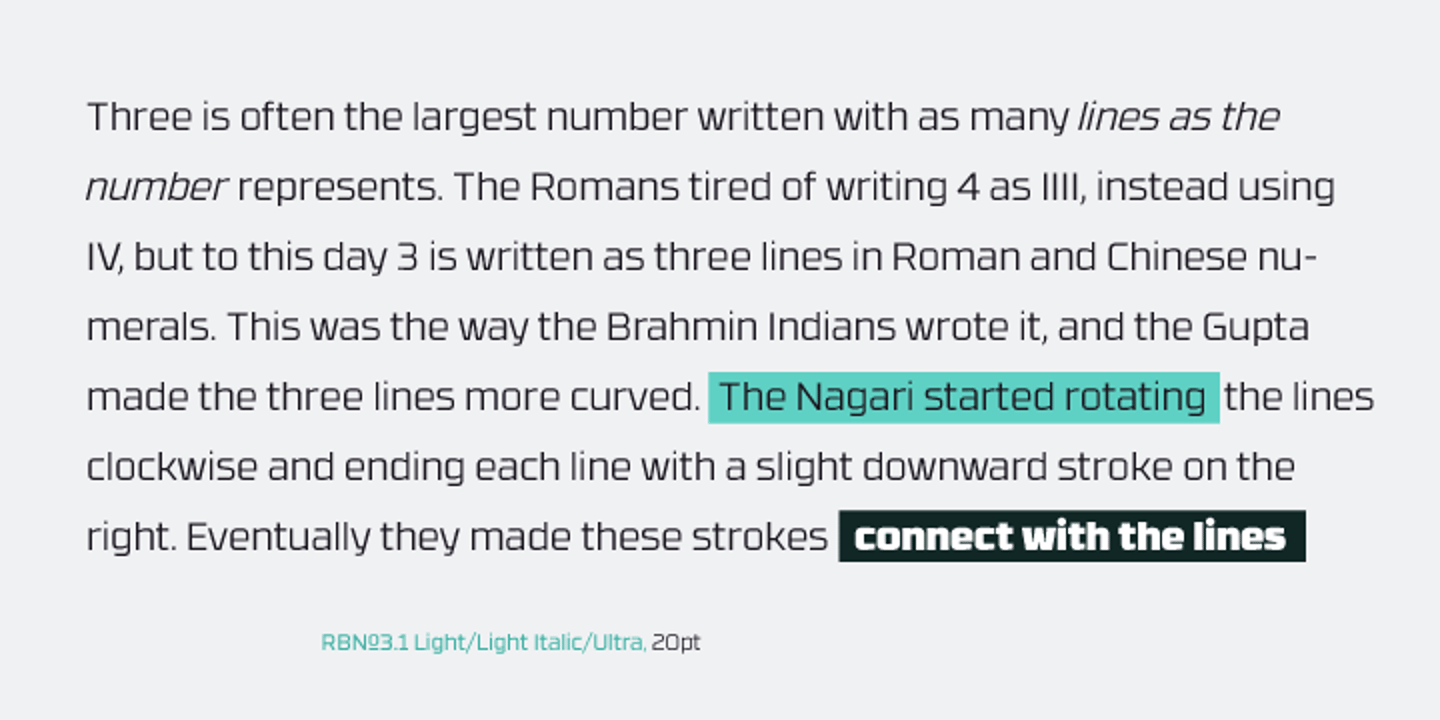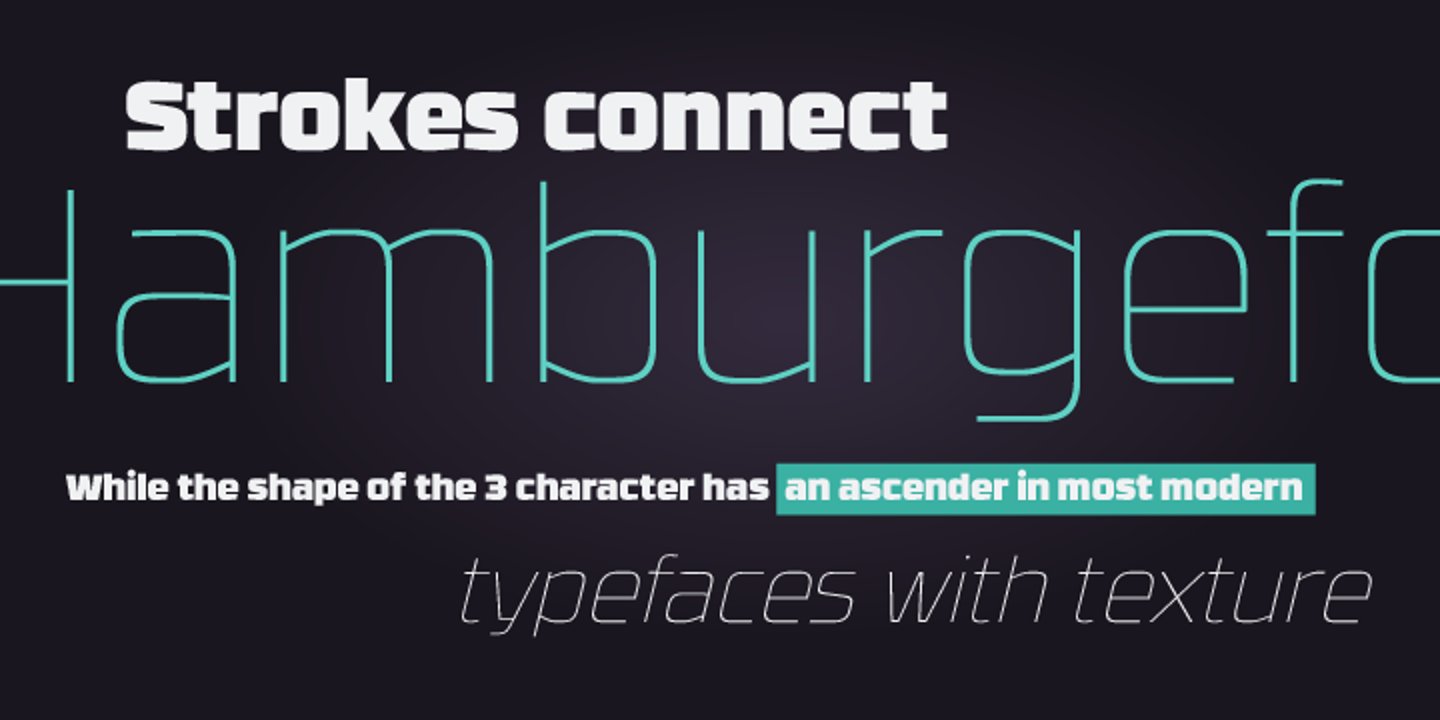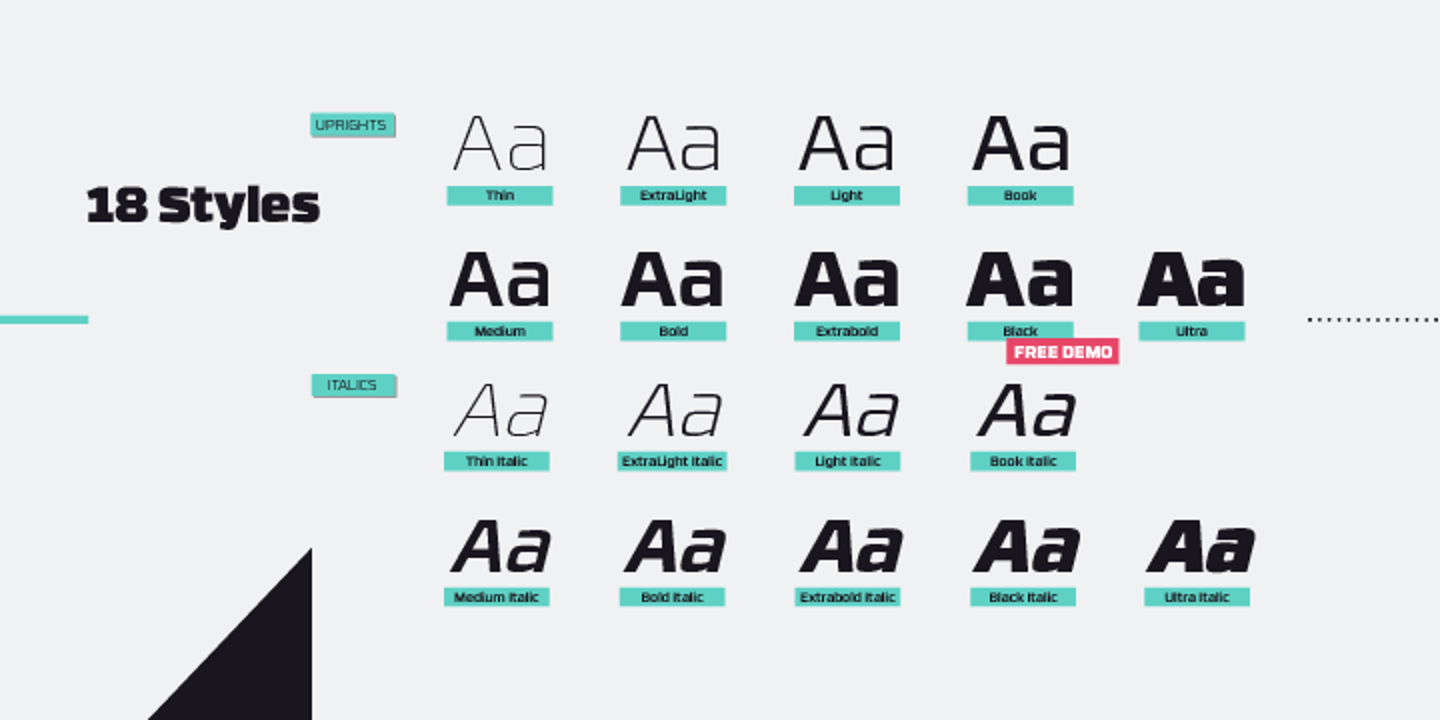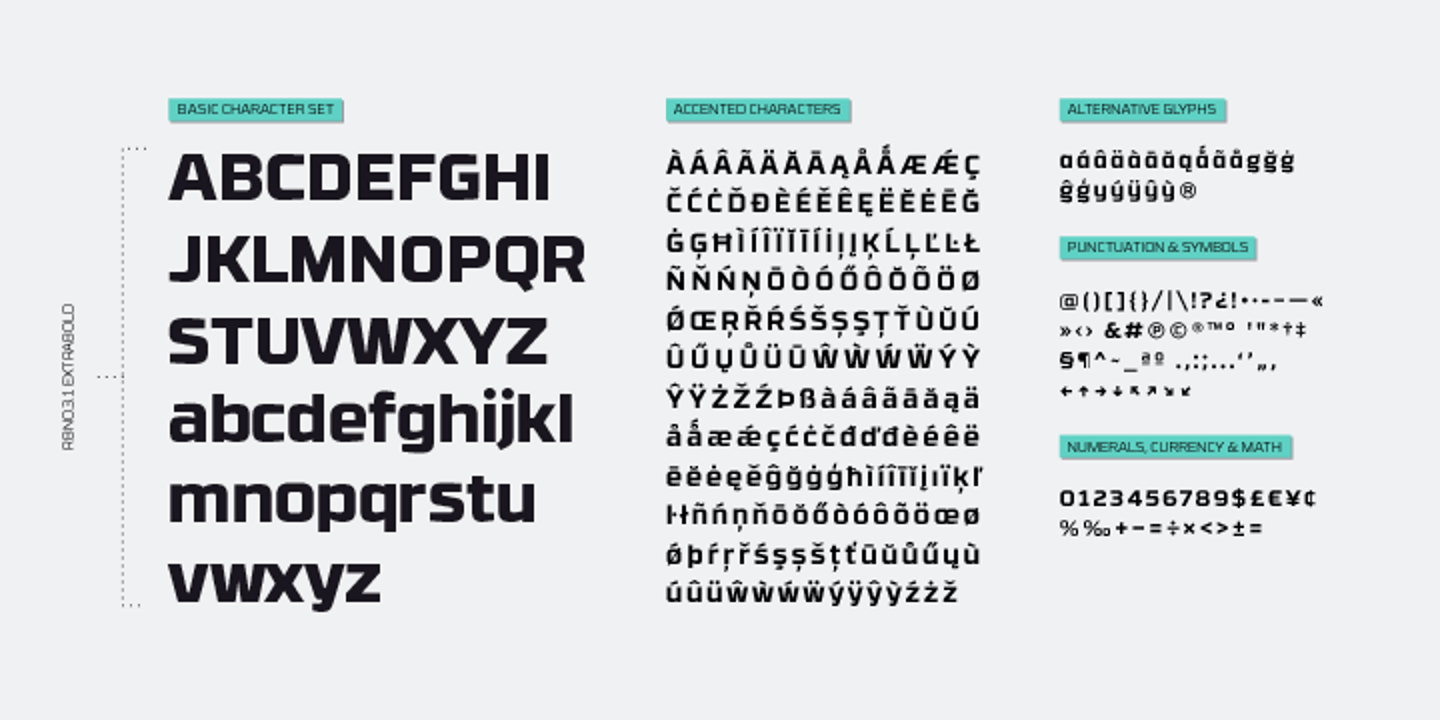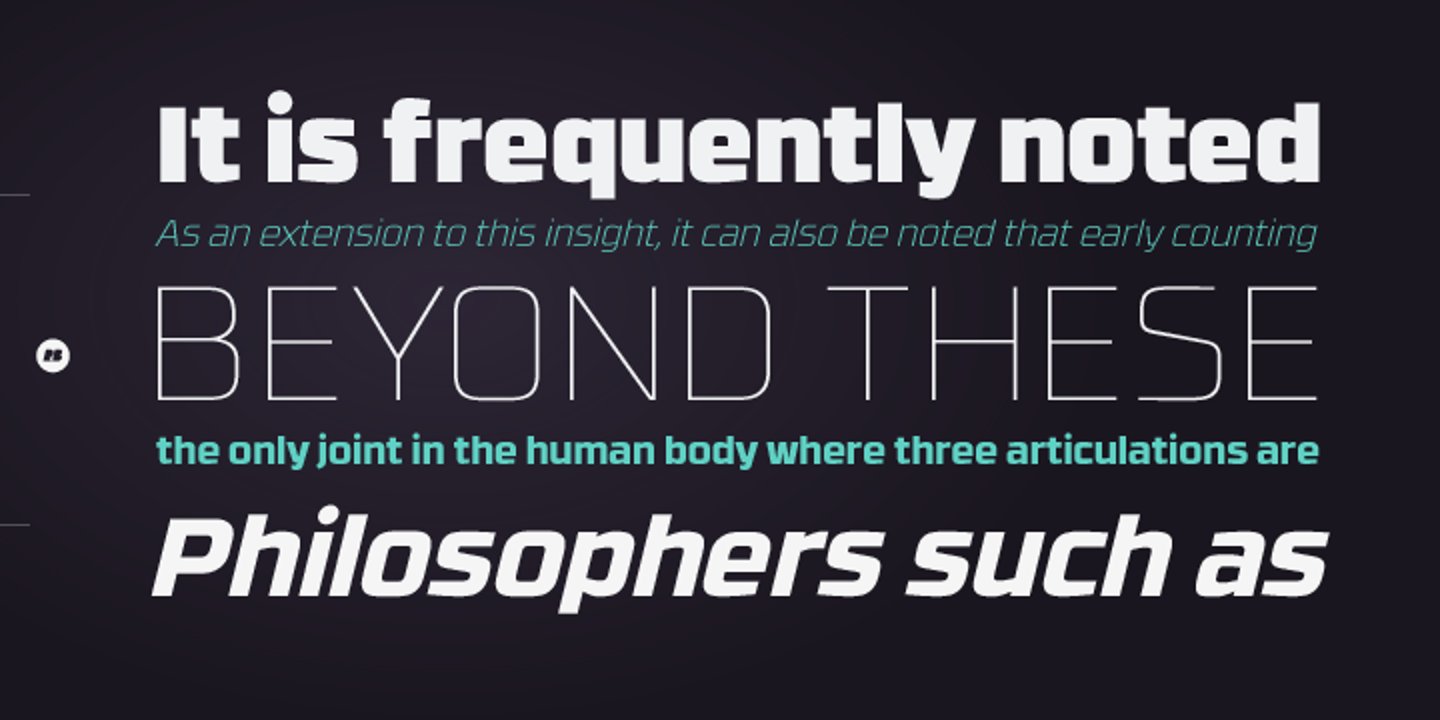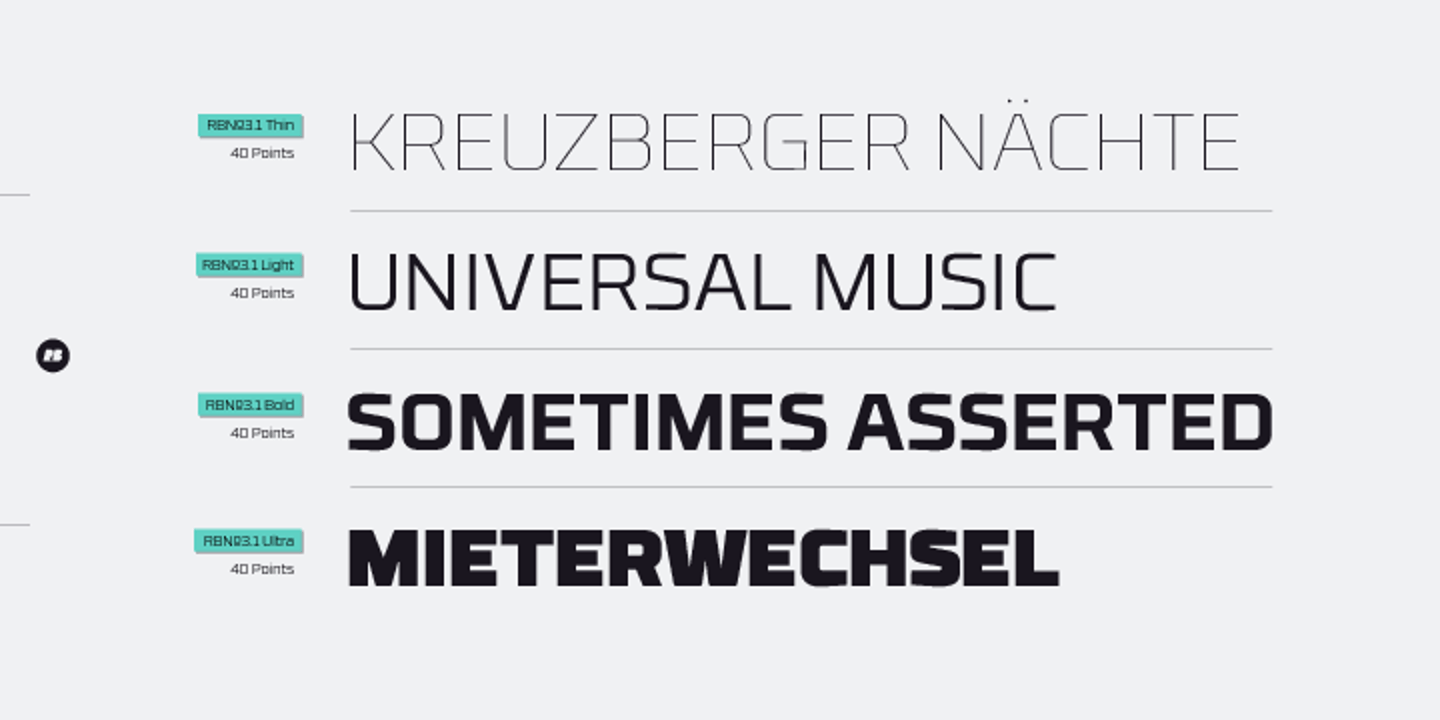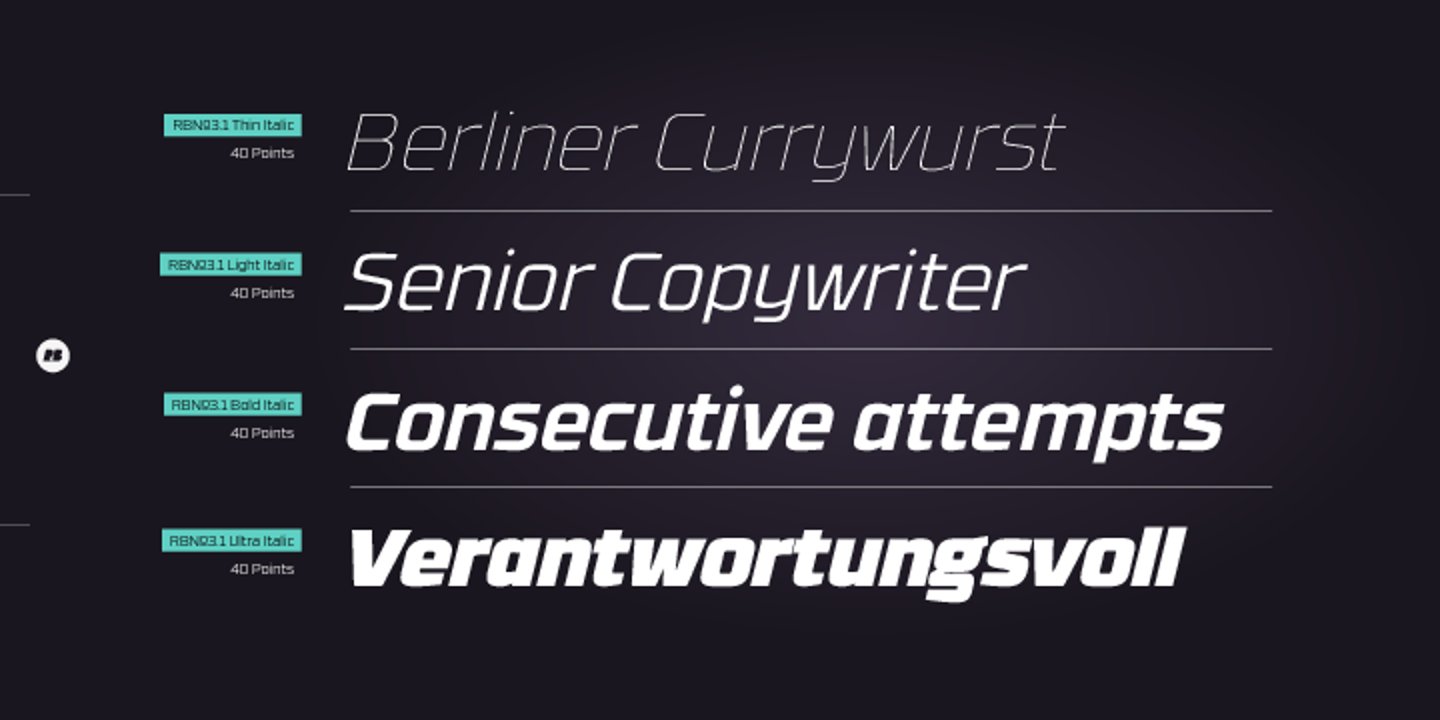
RBNo3.1 is a sans serif typeface with a technical and geometric appearance. The family includes 9 weights with matching italics. Its large x-height makes it especially legible at small point sizes. RBNo3.1 feels comfortable in technical surroundings with short text passages, in brochures, catalogs, magazines, posters, websites, headlines or logos.